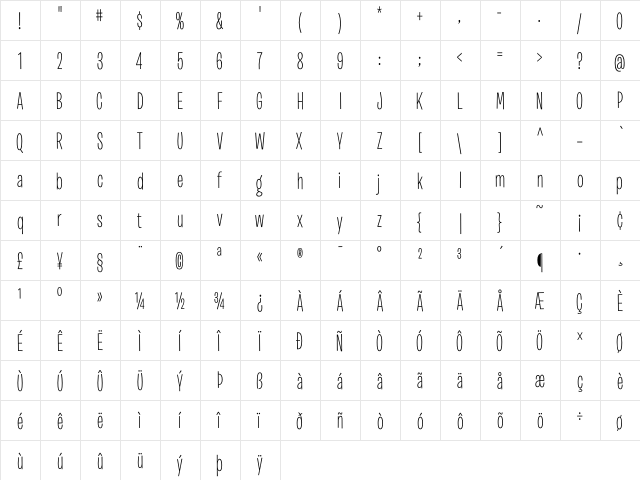
Burbank Big Condensed Light Font Preview
| Foundry | House Industries |
| Designer | Tal Leming |
Design Context for Burbank Big Condensed Typeface
Burbank Big Condensed takes a measured approach to typography — its balanced proportions and neutral character make it a reliable workhorse for both digital and print work. The delicate stroke weight brings airiness and refinement to layouts. Its narrow stance lets it pack a punch even in space-constrained designs.